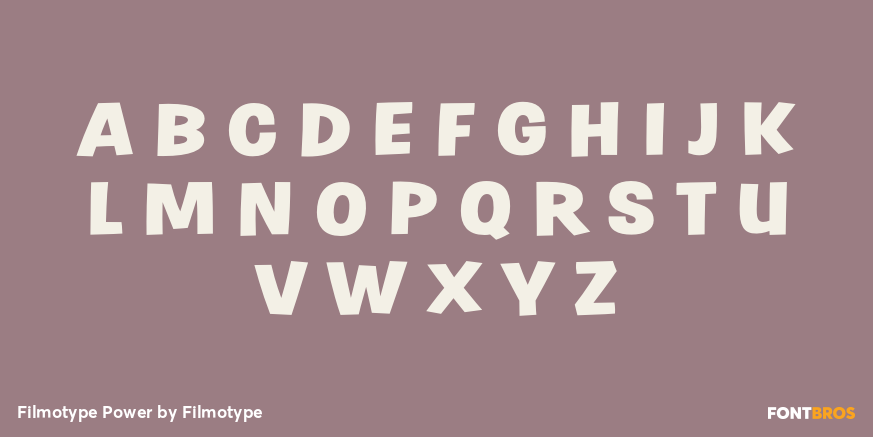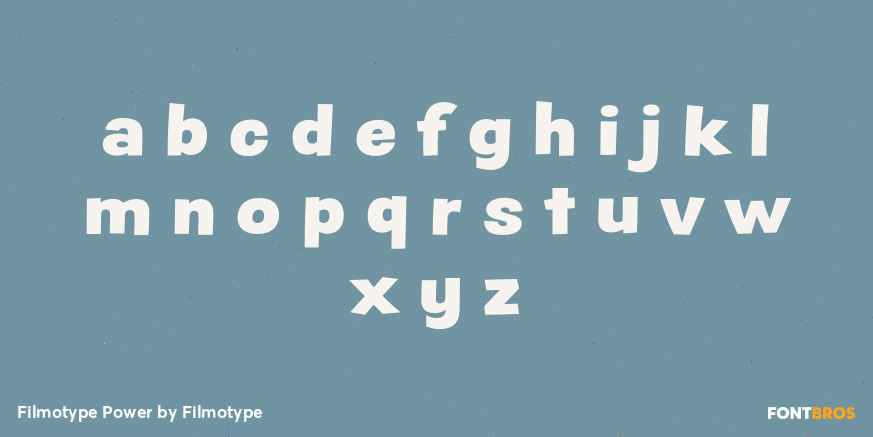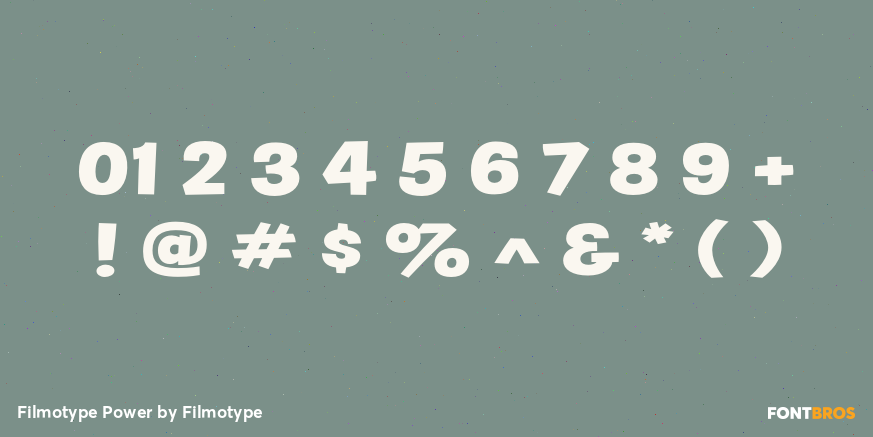
Filmotype Power
Make way for Filmotype Power, a wide bouncy sans serif originally released by Filmotype in 1955 and captures the essence of mid-century casual playfulness.
Filmotype Power was developed from the original font filmstrips and includes a full international character compliment, automatic ligature combinations, ordinals, fractionals, and a host of alternate characters in dynamic OpenType format.